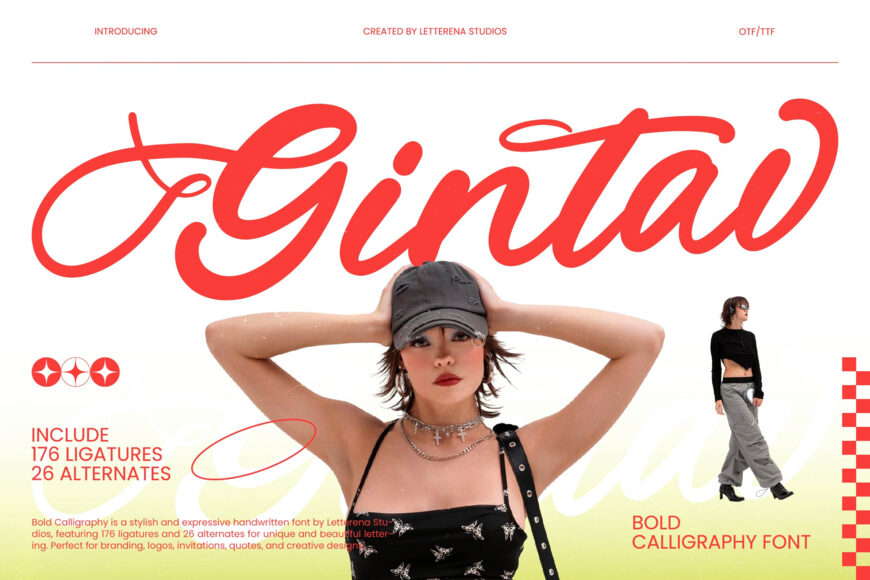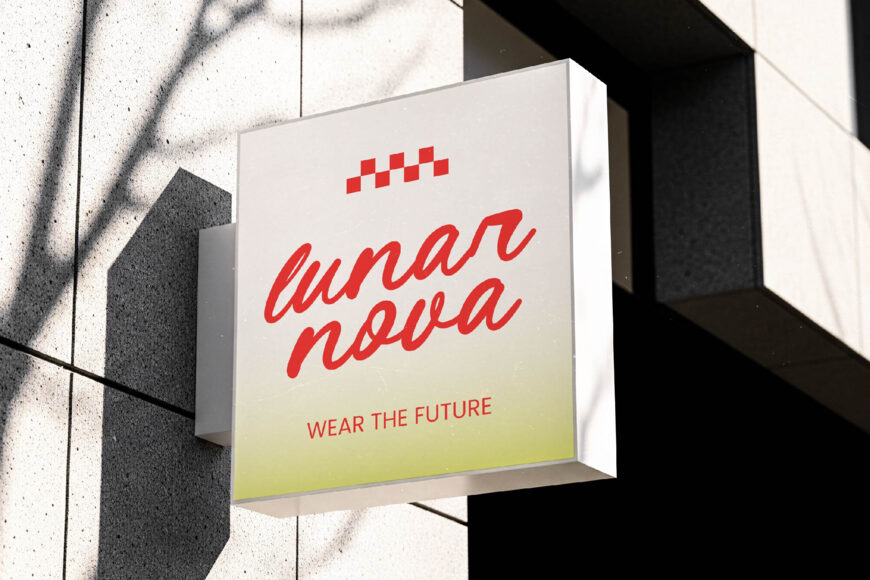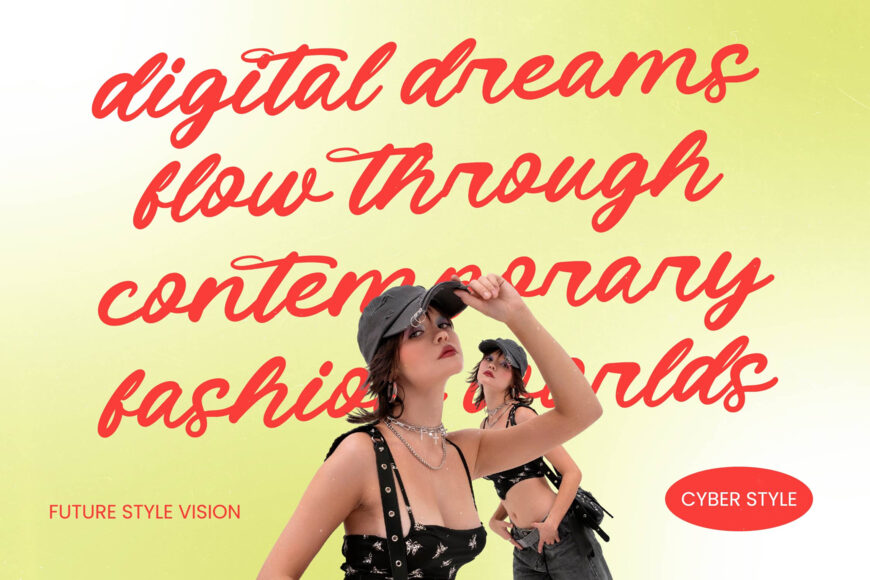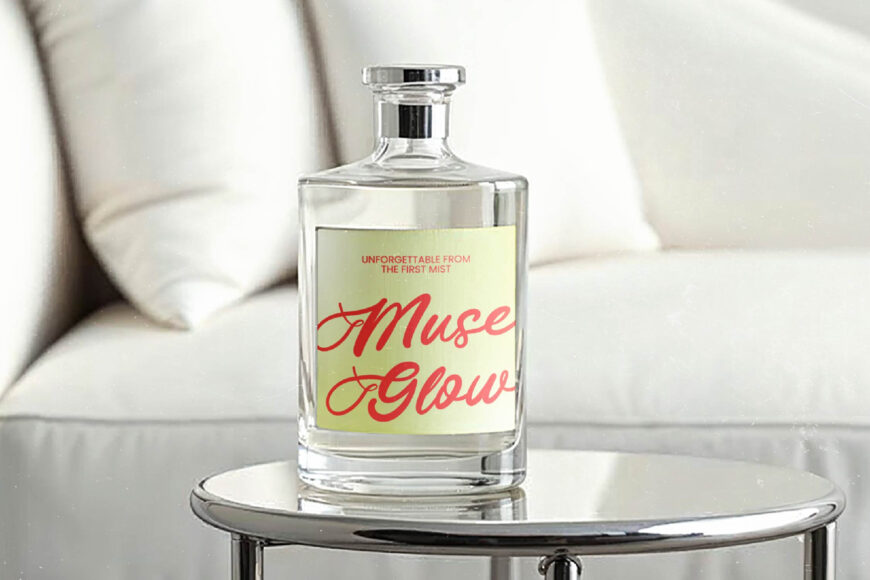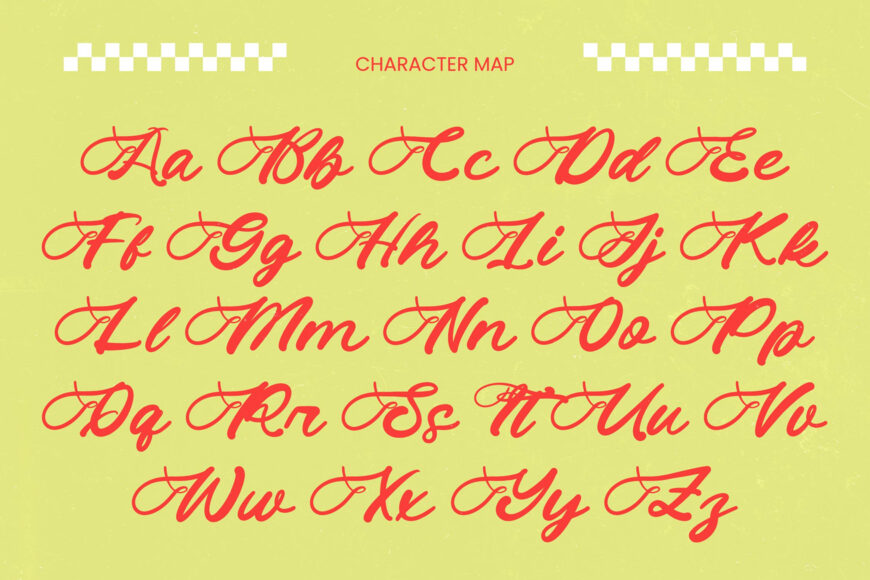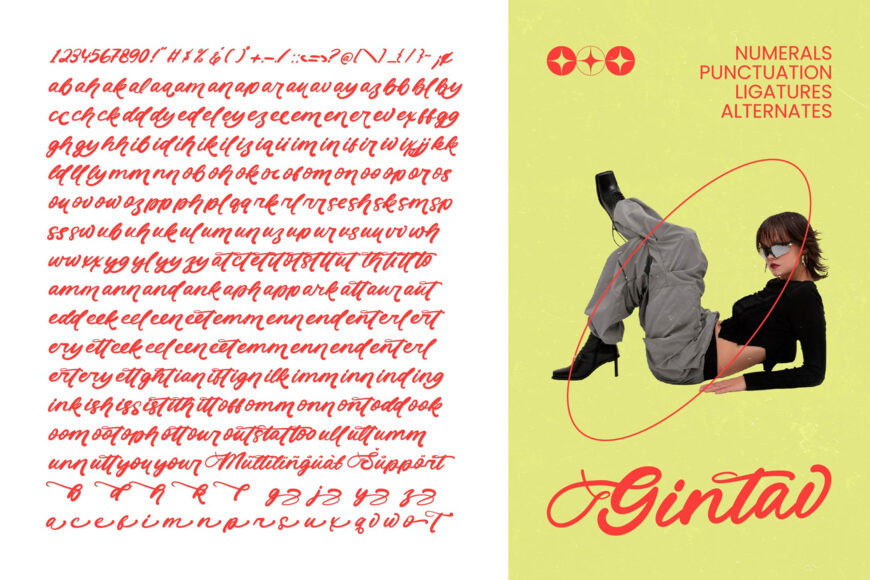
Bring bold energy and refined style to your designs with Gintav, a calligraphic typeface that blends fluid hand lettering with strong, confident strokes. Its expressive yet legible character adds a handcrafted touch to logos, luxury branding, streetwear, social media graphics, premium packaging, wedding invitations, editorial layouts, and fashion headlines.
Created for global use, Gintav offers multilingual support and comprehensive character sets for consistent branding across markets. With 176 ligatures and 26 alternates, its OpenType features provide plenty of creative flexibility, allowing you to customize letter combinations and achieve distinctive results.